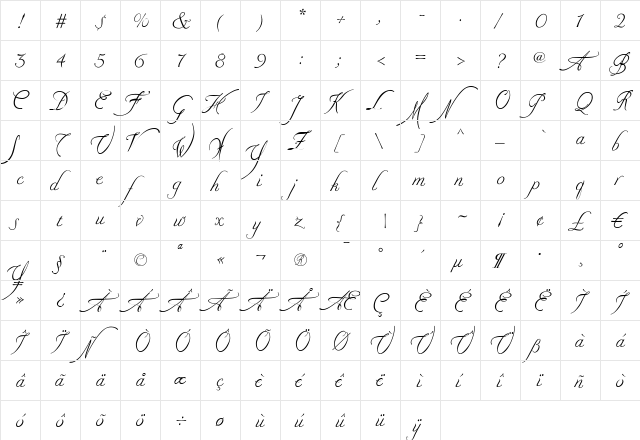
Nadine Normal Regular
Design Context for Nadine Normal Typeface
Nadine Normal is a composed and adaptable typeface that performs quietly and consistently across a wide range of design contexts.